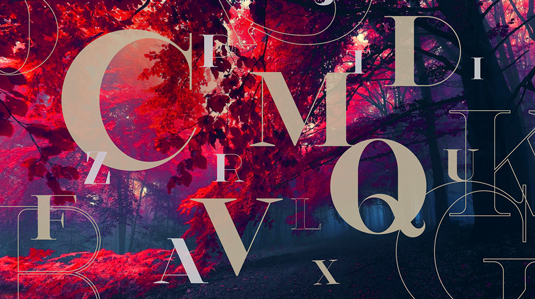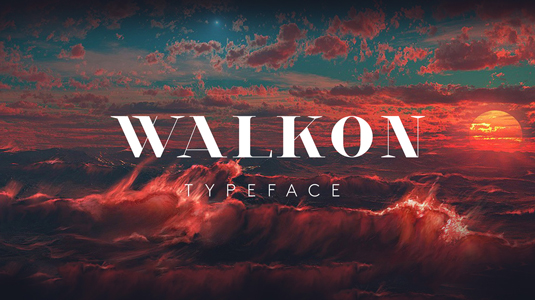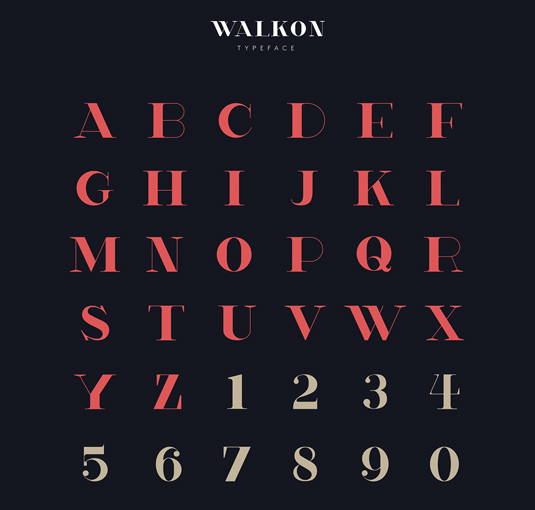
Font of the day: WalkOn
WalkOn by Hanson Chan
Today's typeface of choice is serif design WalkOn, by Hanson Chan. "Walk-On was originally created as a corporate typeface for the fashion brand Wang & Lynch," Chan comments on Behnace. "It draws inspiration from the eras of Art Deco and Art Nouveau, but with a radically contemporary approach."